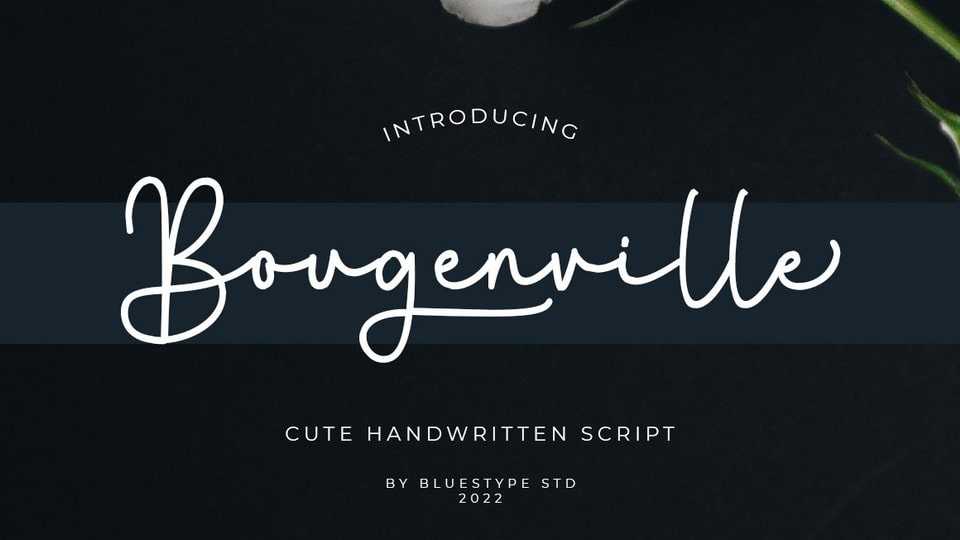
Download Bougenville font, a beautiful script font, that features a very refined and classy look. Not too thin and not too thick, balanced and varied, Bougenville font was designed to enhance the beauty of your projects.